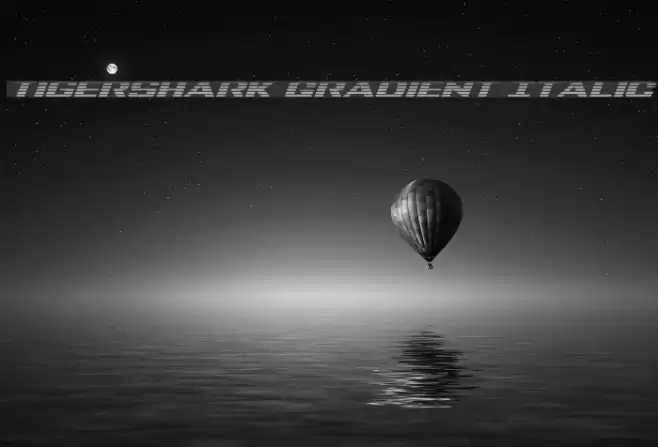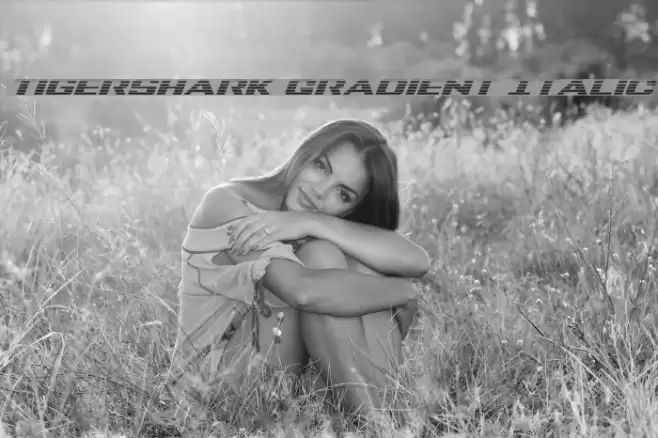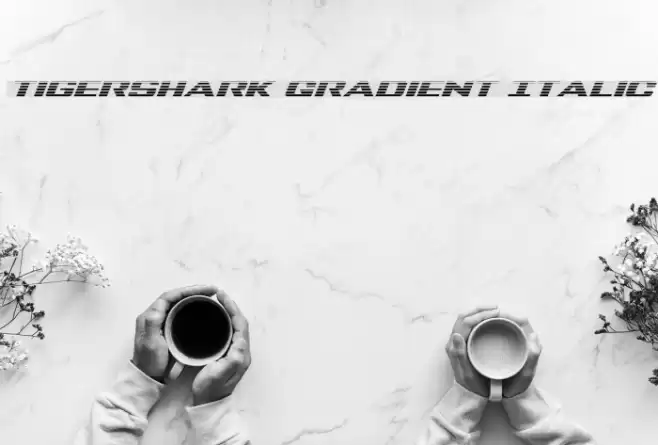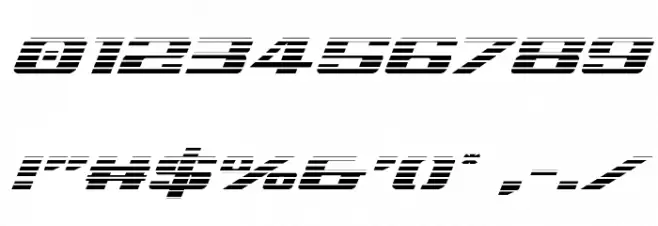
Tigershark Gradient Italic Font
Tigershark Gradient Italic Description
This font features a dynamic and modern design with a distinct italic slant, giving it a sense of motion and energy. The characters are composed of horizontal stripes, creating a gradient effect that adds depth and visual interest. The uppercase and lowercase letters maintain a consistent style, with sharp angles and clean lines. The numerals and special characters are equally bold and striking, making them stand out. This font's unique striped pattern and italicized form make it ideal for projects that require a futuristic or sporty aesthetic.
A modern, italic font with a striped gradient effect, exuding energy and motion from Uncategorized fonts.
- Proposed Projects: Ideal for sports branding, futuristic designs, automotive advertisements, and dynamic posters.